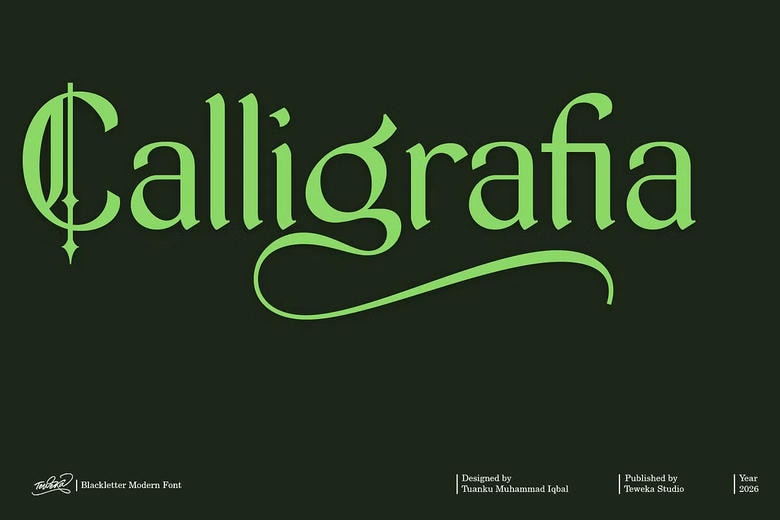
Calligrafia Font
Calligrafia is a contemporary Blackletter typeface that incorporates the traditional gothic style with the modern design philosophy. It provides high-impact letterforms that are bold, artistic, and full of character – ideal in developing strong, exclusive, and high impact images.
Calligrafia is inspired by the traditional structure of blackletter and developed to be used in modern world; it has the perfect proportions and edges without appearing to be obsolete. Each stroke is thoughtfully designed to guarantee strong visual impact but at the same time flexible in a wide range of design uses.
Calligrafia Blackletter Font